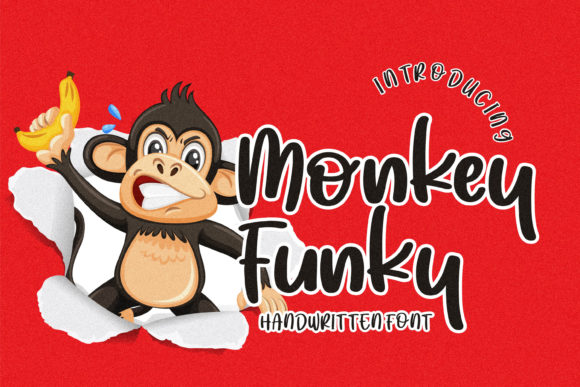
Embark on a typographic adventure with Monkey Funky, a captivating script font family that will unleash your creativity like never before. Enter a realm where your designs dance with a refreshing handwritten flair, leaving an enduring impression on every project you touch.
Escape the ordinary and dive into a world of endless possibilities. Monkey Funky's elegant curves and playful personality bring a touch of whimsy to your digital creations, effortlessly captivating your audience. From heartfelt invitations to vibrant social media posts, this font family is your passport to design excellence.
Experience the sheer joy of crafting designs that resonate with your audience. Monkey Funky's versatility knows no bounds, seamlessly adapting to a myriad of design styles and themes. Whether you're a seasoned designer or just starting your creative journey, this font family will elevate your projects to new heights.
Step into the spotlight and let your designs shine with Monkey Funky. This font family is meticulously crafted to complement Cricut markers, ensuring flawless results every time. Unleash your imagination and create eye-catching projects that demand attention, leaving your audience spellbound.
With Monkey Funky, the possibilities are limitless. Explore a kaleidoscope of colors, styles, and combinations to match your unique vision. Express yourself with confidence, knowing that this font family will faithfully convey your message with impeccable style and grace.
Don't settle for ordinary fonts. Embrace the extraordinary with Monkey Funky, the ultimate font family for Cricut marker enthusiasts. Embark on a creative odyssey and transform your designs into masterpieces that captivate and inspire. Elevate your projects to new heights and leave an indelible mark on the world of digital art.